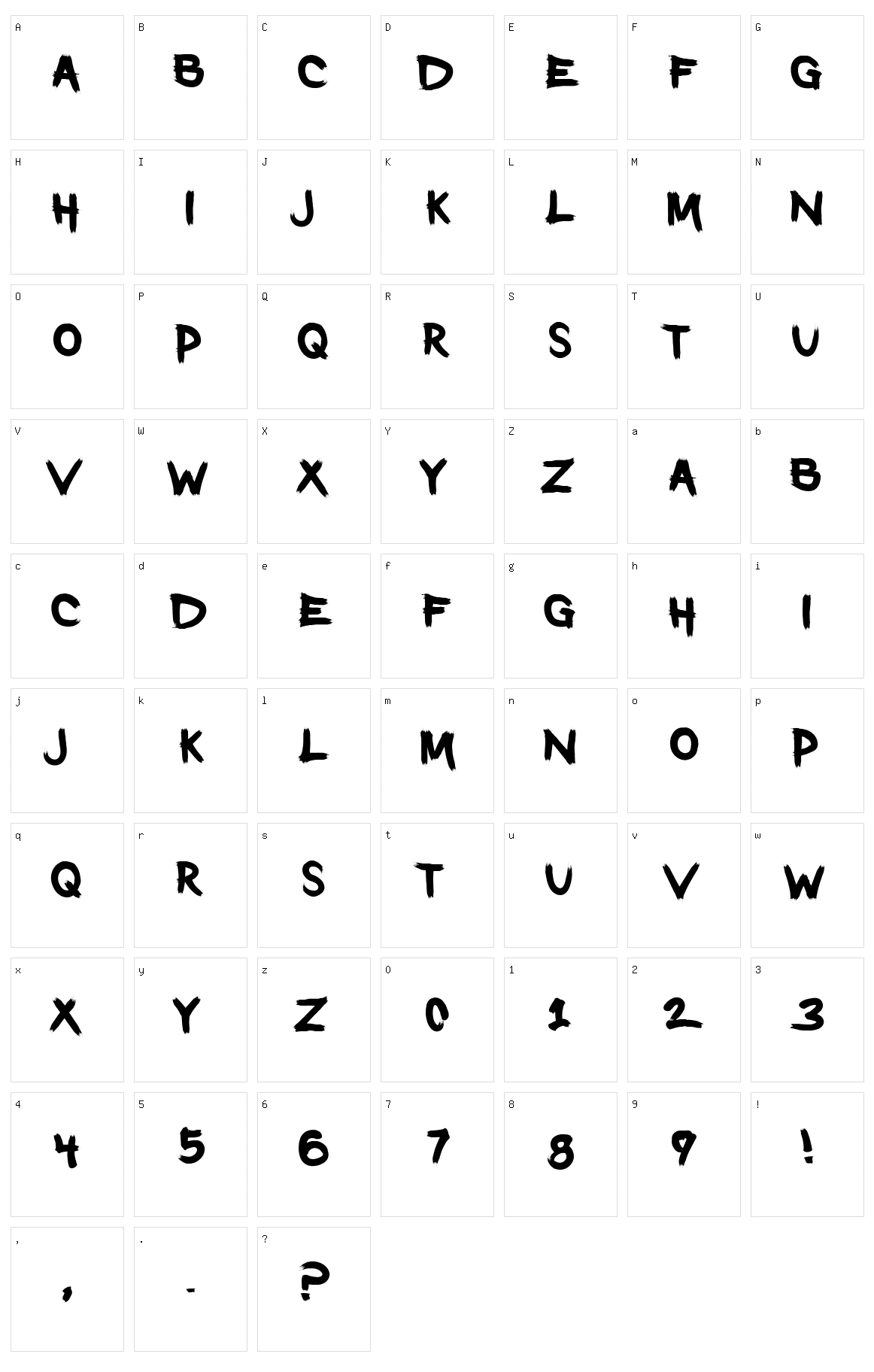
The free font Golf Club Homicide is carefully designed by Font Monger, showcasing a thoughtful balance of creativity and usability and falls under the Horror font style. When you download the ZIP file, it contains only 125.37 KB of font files, making it lightweight and quick to download. Please review the license details below to understand permitted usage and distribution rights. If license information is not available, we recommend using this font for personal projects only or contacting the author directly for commercial usage permissions.
Designed by: Chris Vile